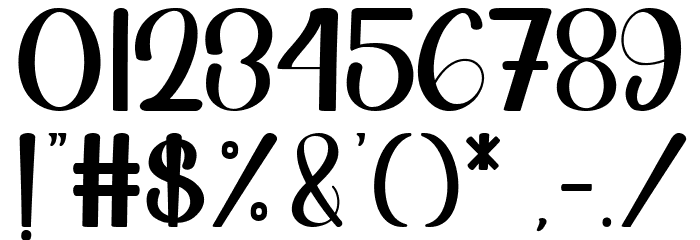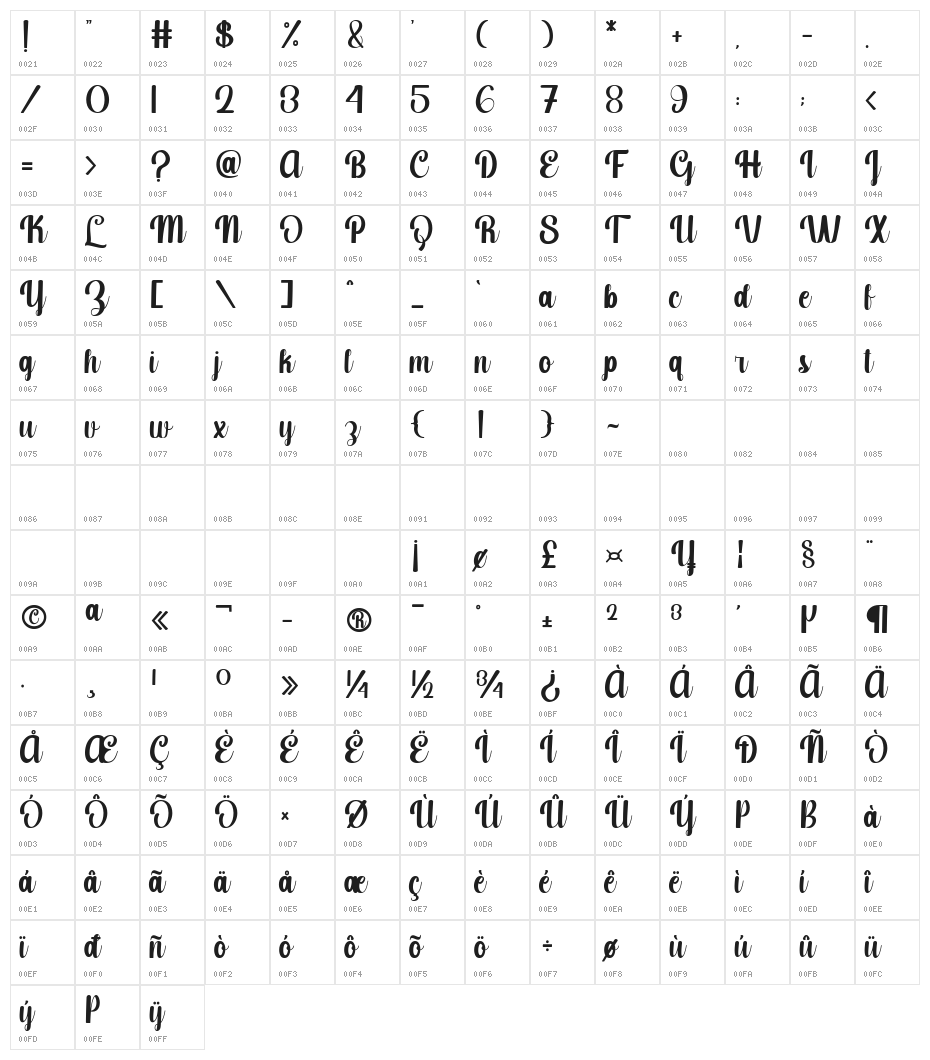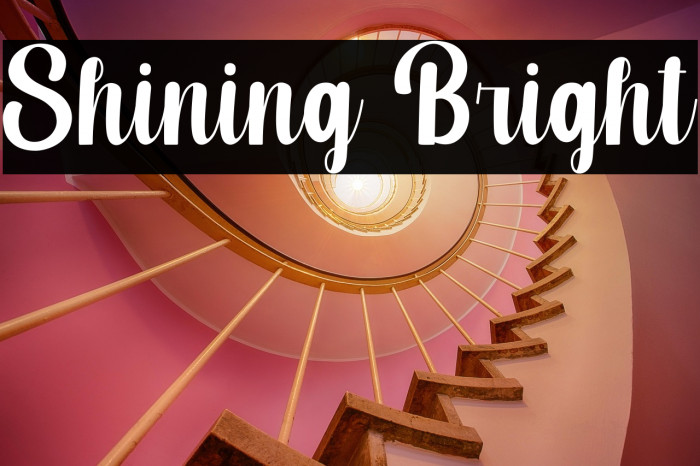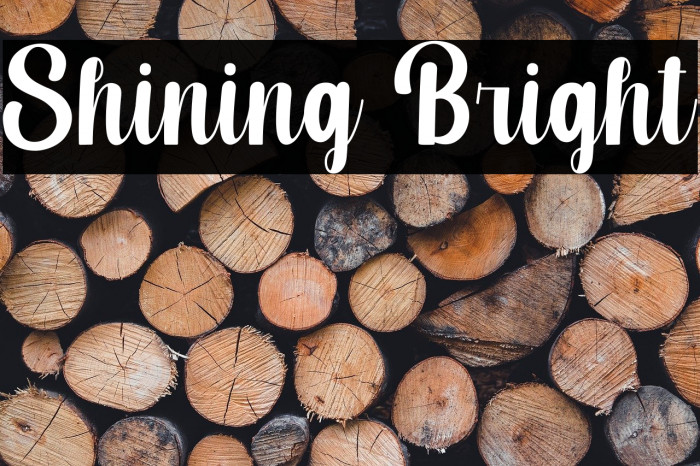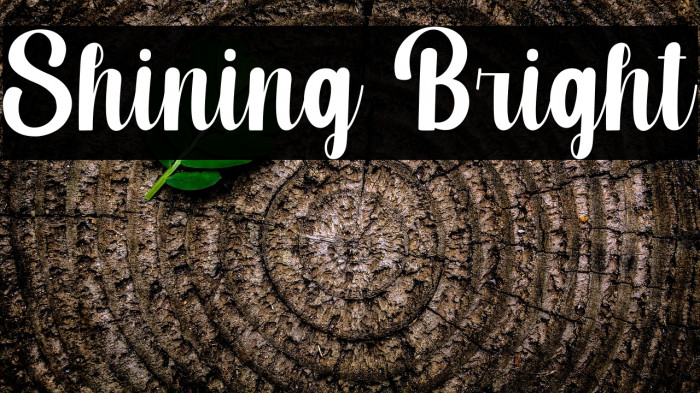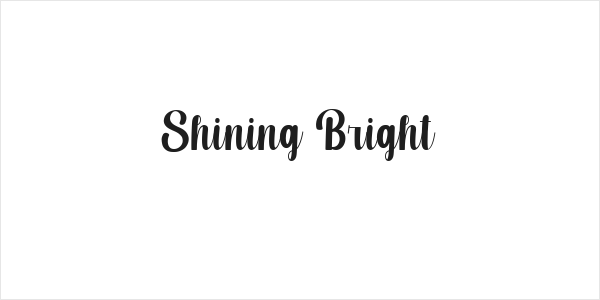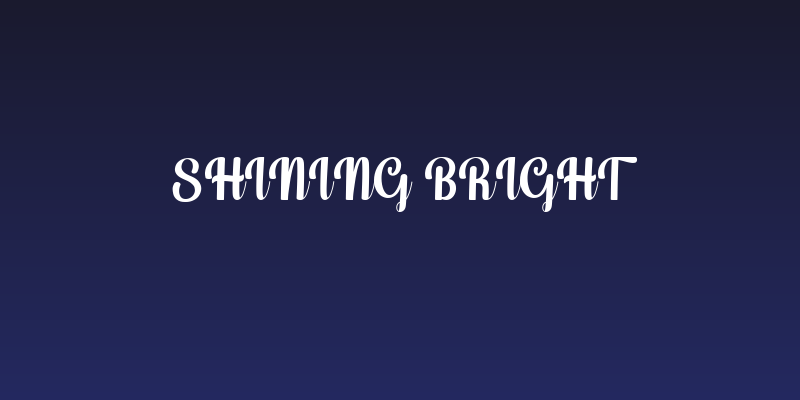
Shining Bright Font
Shining Bright Description
This font features a bold and expressive script style, characterized by its flowing, cursive letterforms that exude elegance and flair. The uppercase letters are particularly striking, with sweeping curves and dramatic flourishes that make a statement. The lowercase letters maintain a consistent style, with smooth connections and a rhythmic flow that enhances readability. Numbers and special characters are designed with the same attention to detail, ensuring a cohesive look across all glyphs. The font's high contrast between thick and thin strokes adds to its dynamic appearance, making it suitable for eye-catching designs.